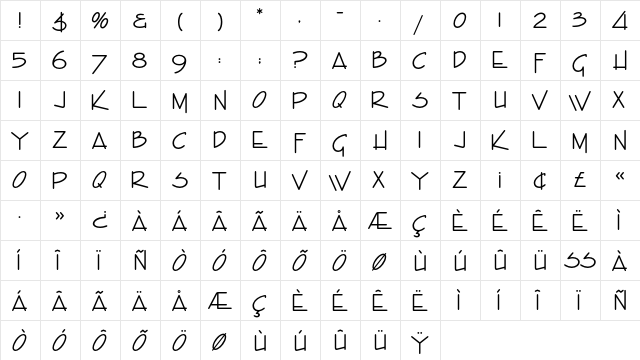
EnviroEF Regular
Design Context for EnviroEF Typeface
EnviroEF is a composed and adaptable typeface that performs quietly and consistently across a wide range of design contexts.